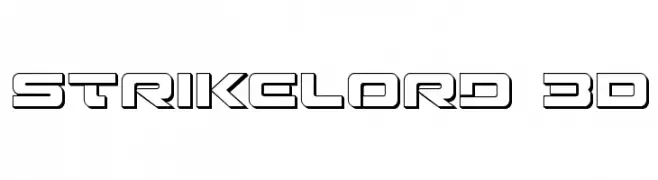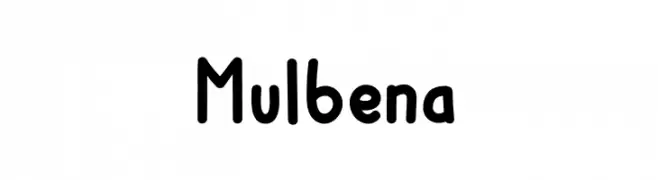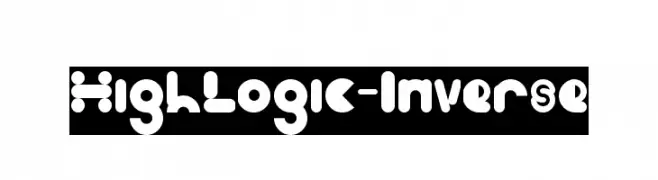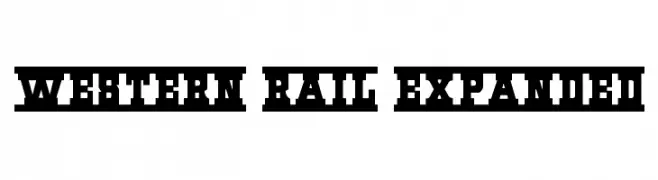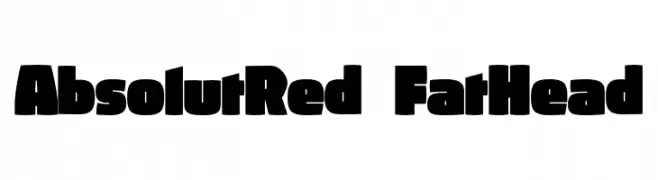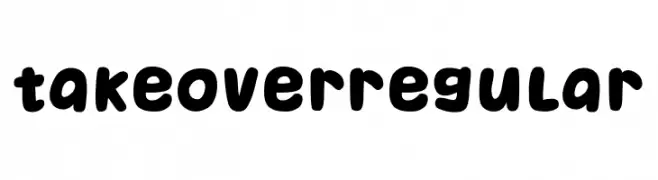
A bold, decorative font with a textured, hand-drawn appearance.
A rough, hand-drawn font with an edgy, rebellious style.
A bold, hand-drawn font with a playful and energetic style.
A bold, geometric 3D font with a futuristic and industrial style.
A playful, rounded font with a bold and friendly appearance.
A bold, playful font with rounded, inverse-style characters.
A bold, expanded font with a rugged, Western-inspired style.
A bold, rounded font with thick, uniform letterforms ideal for impactful headlines.
A geometric, retro-inspired font with bold, angular lines and distinctive curves.
A playful, bold font with rounded, bubbly characters.